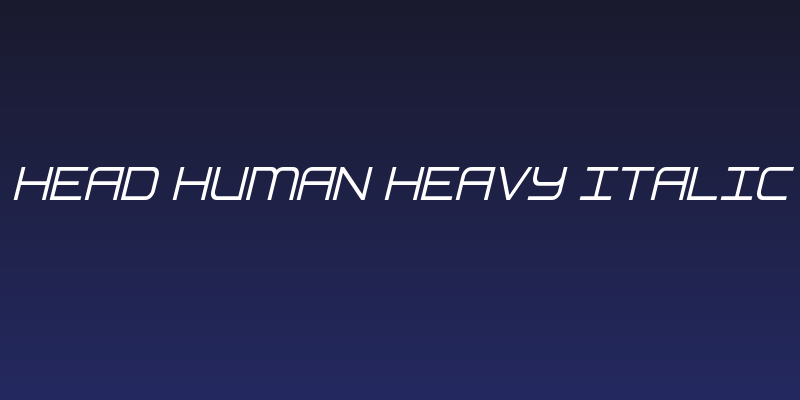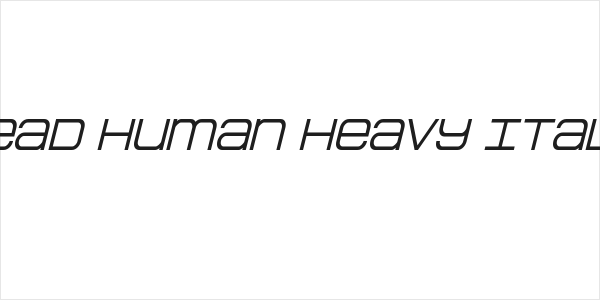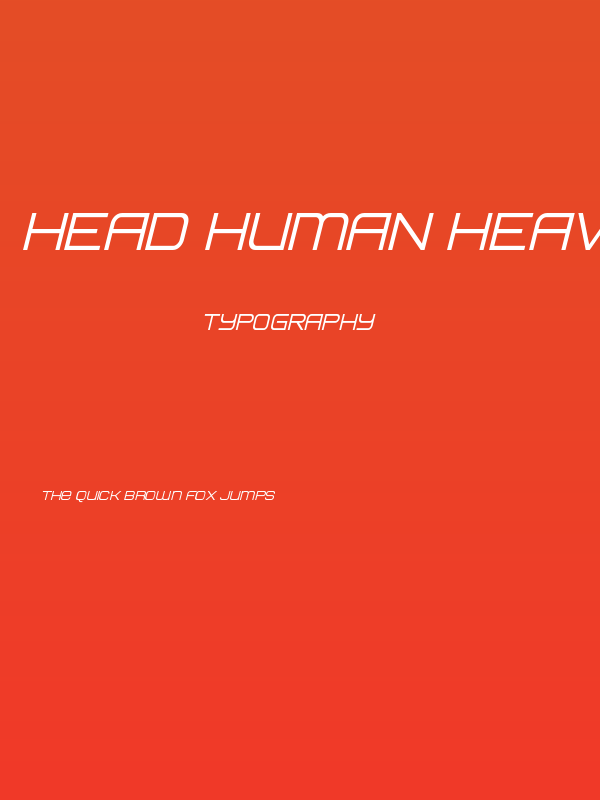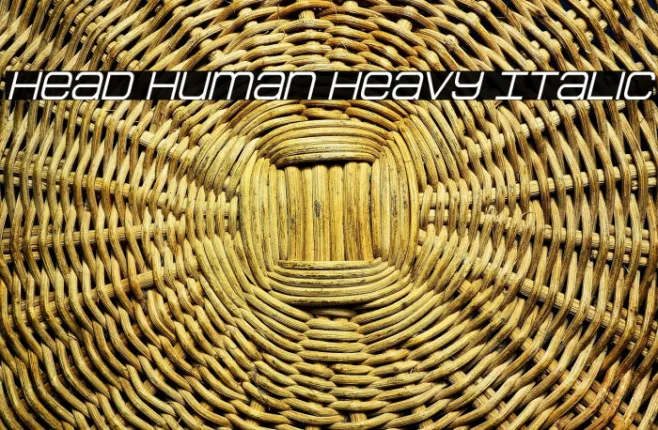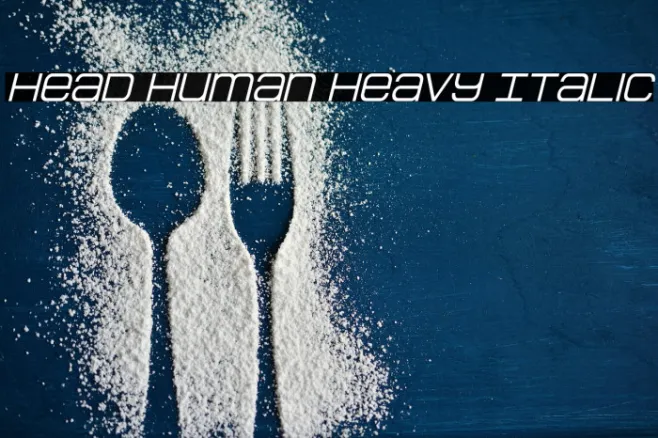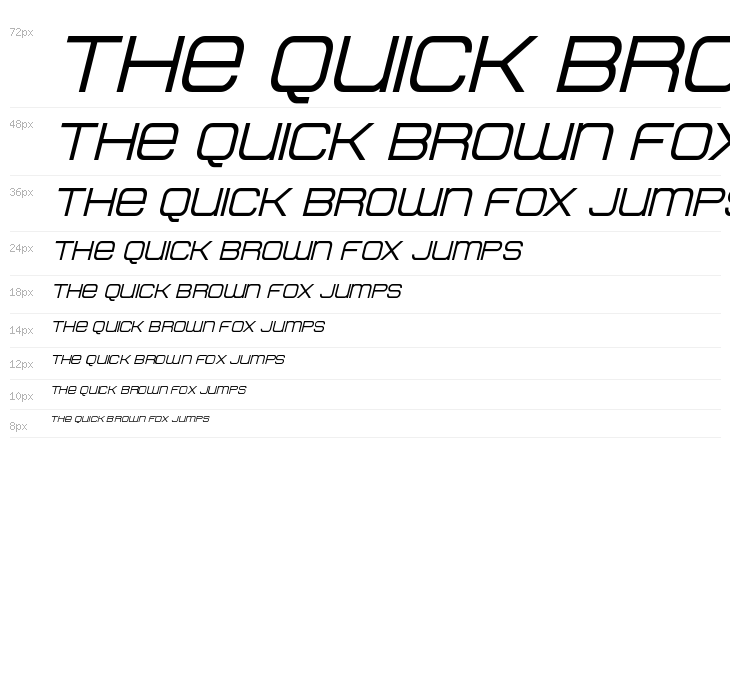
Head Human Heavy Italic Font
Head Human Heavy Italic Description
This font features a modern, italicized style with a sleek and futuristic appearance. The characters are slightly condensed, giving it a streamlined look. The strokes are consistent in weight, providing a uniform and cohesive appearance across all characters. The design incorporates sharp angles and clean lines, contributing to its contemporary aesthetic. The font maintains a medium contrast in stroke thickness, ensuring readability while adding a touch of elegance. Its unique style makes it suitable for projects that require a modern and dynamic feel.
| Proposed Projects | Ideal for technology branding, modern advertising, and futuristic design projects. |